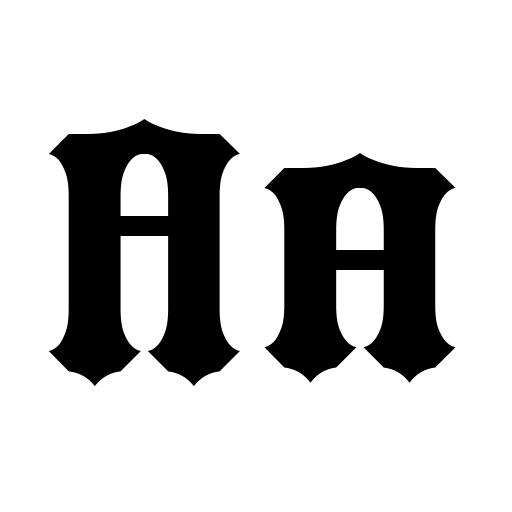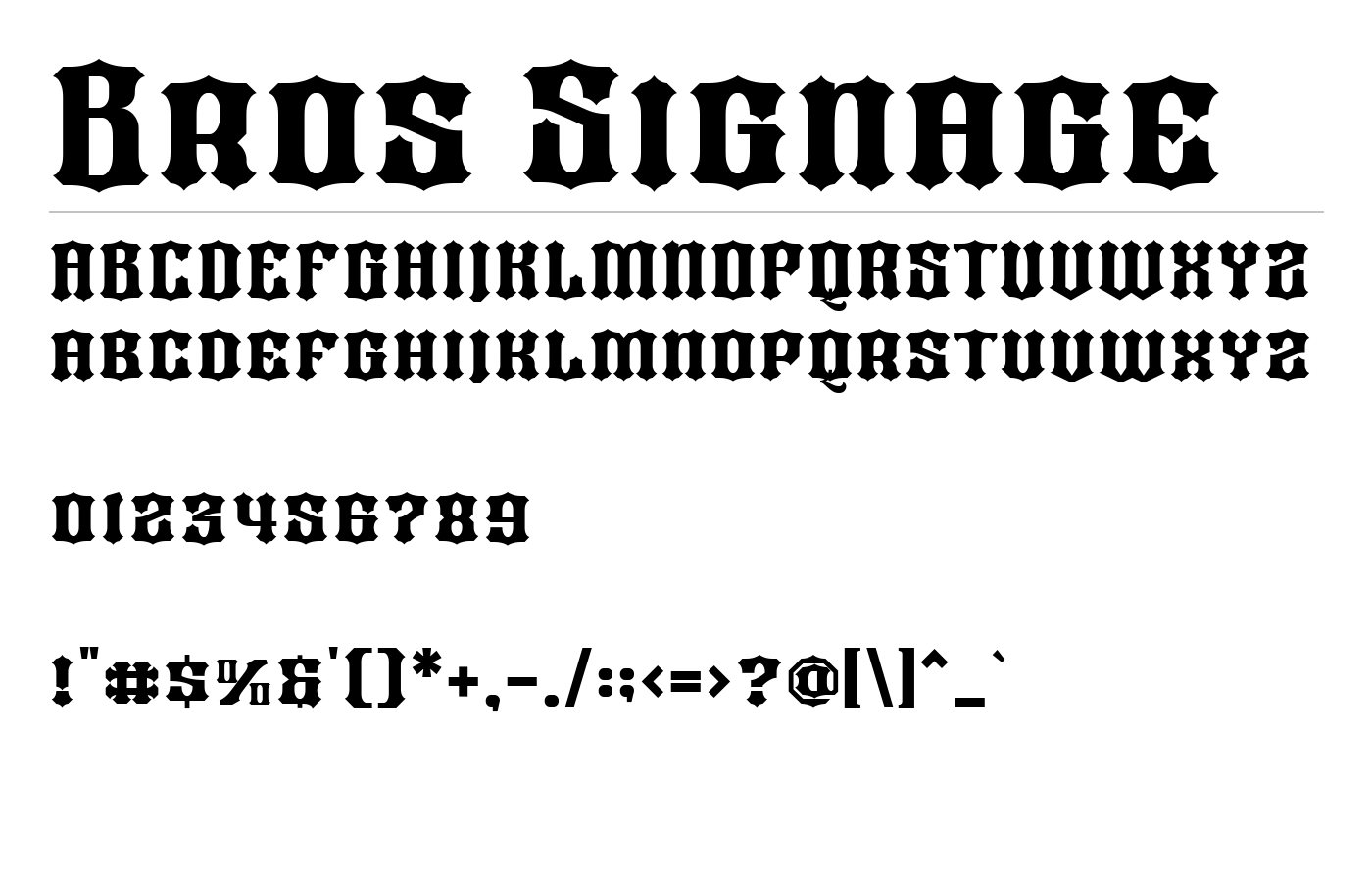
Bros Signage is a bold, blackletter-inspired font with a strong, condensed structure and distinctive sharp, angular edges that evoke a vintage, Gothic feel. Its high contrast and ornamental touches give it a powerful, dramatic personality, making it ideal for signage, logos, posters, and branding that seek a historic or rebellious tone. This font works best in display settings where its unique style can grab attention and convey strength and tradition.
Bros Signage Font
About Bros Signage Font